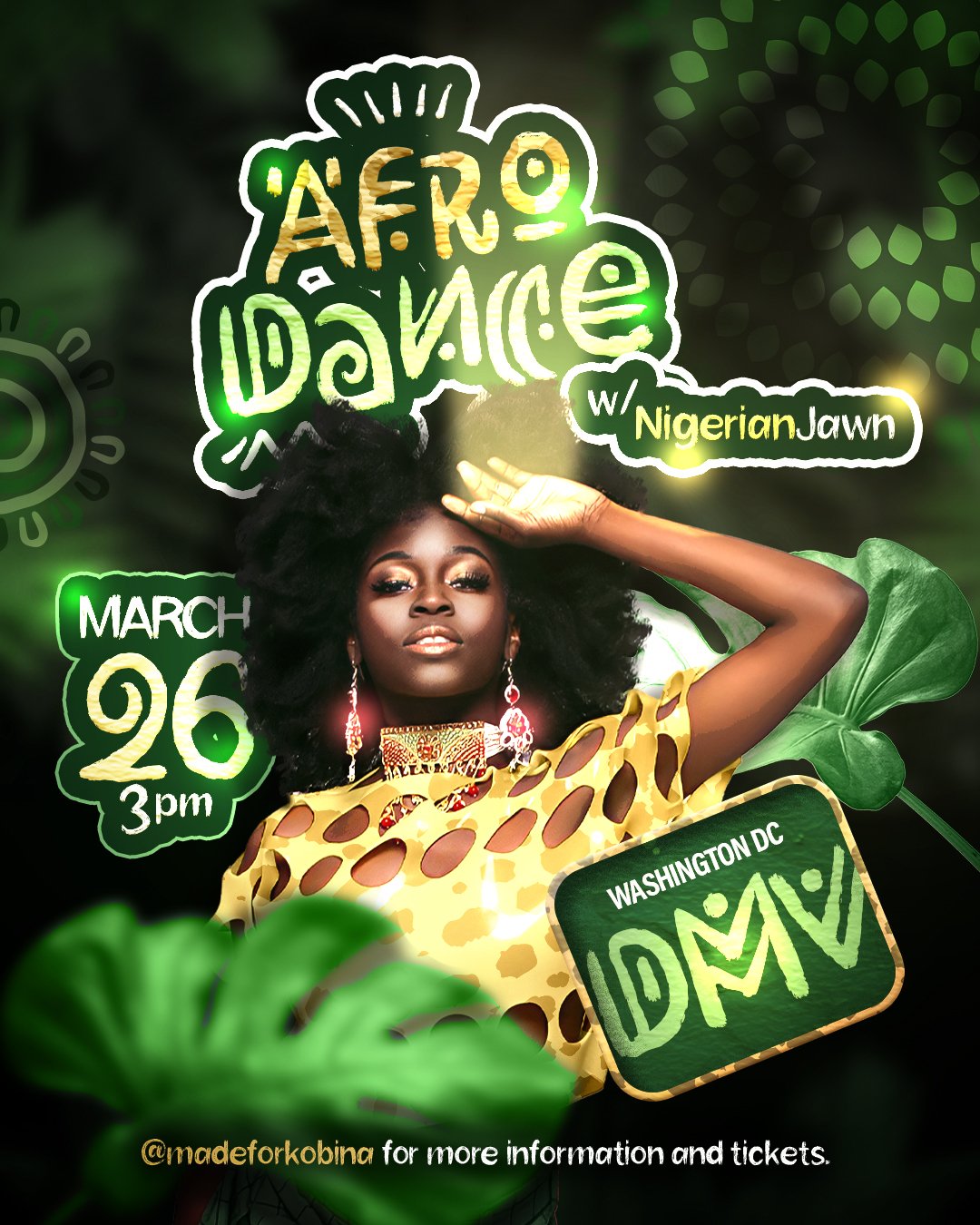
Rimba Andalas
Rimba Andalas Swashes
Rimba Andalas
Introducing Rimba Andalas, a playful ethnic font with extra ornaments. This experimental font inspired by the shapes of tree branches and combined with rough strokes such as ancient symbols found inscribed in caves. Perfect for the natural theme, folk, tribal, children, adventures, and social movement.
Rimba Andalas is a display font, suitable for the headline, logo, apparel, books, poster, signage, and more. You can mix and match the uppercase and lowercase to get more unique tribal handwritten, also equipped with swashes as the decoration.